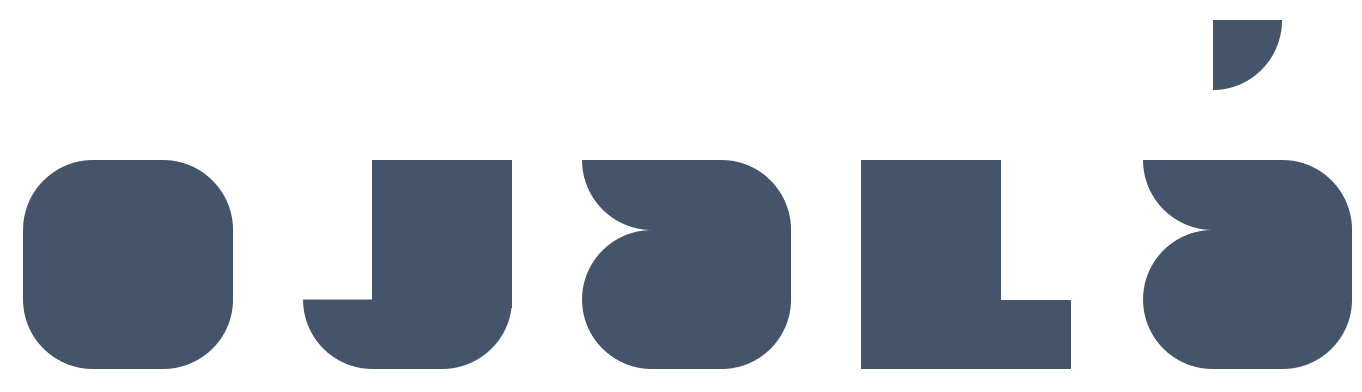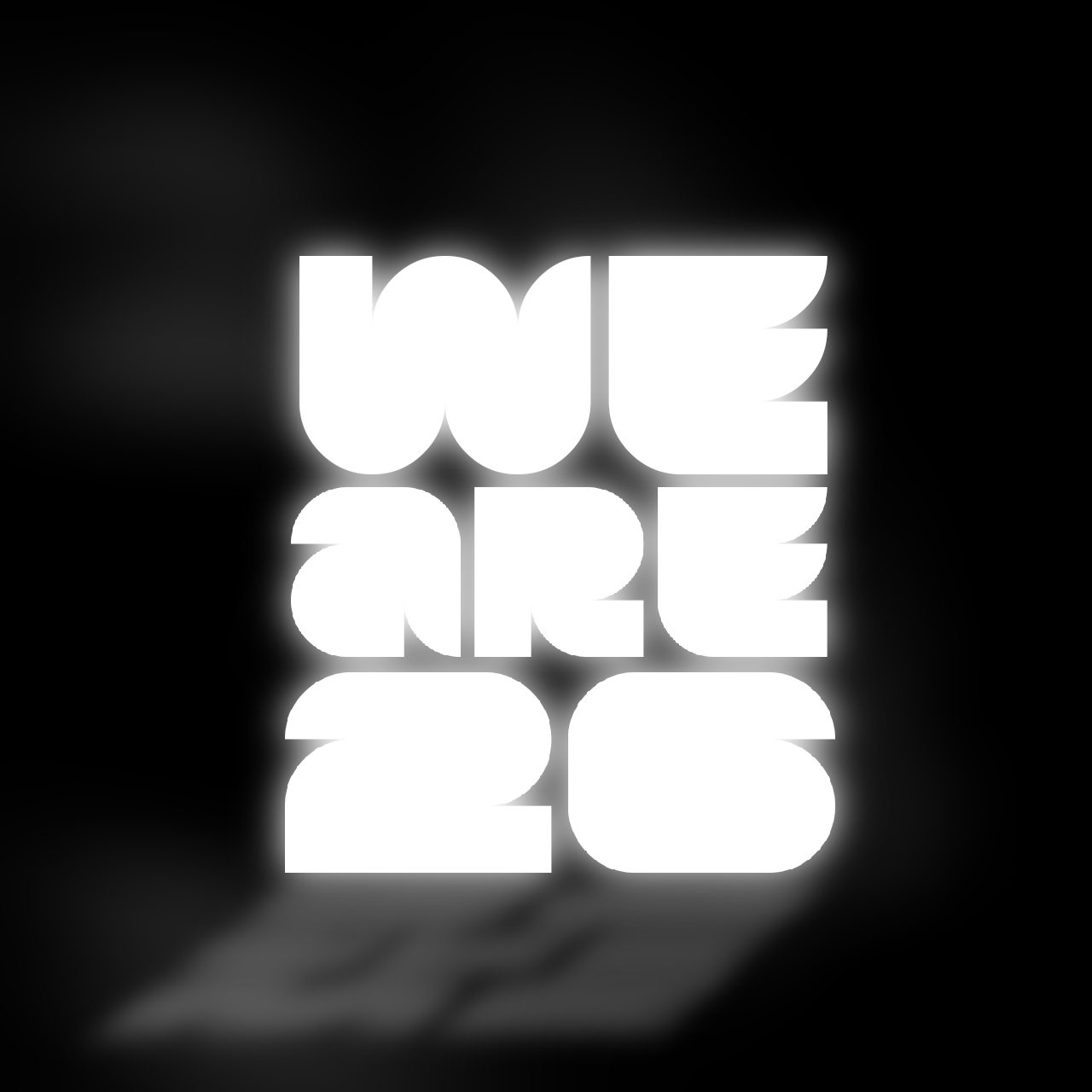
• This is a 1:1 replica of the 2026 World Cup font, with extra characters (I'm adding more soon), used in the "WE ARE 26", “HOST COUNTRIES AND CITIES”and the bottom right of the cards.
i recall that in la 2 from RTVE (spanish version of BBC), there was an ad for fifa 26, and in the end it said "ojalá" in the fifa 26 font, which looked something like the sample
(noticed now that i messed up a corner in the A's)
could you add these letterforms in lowercase?